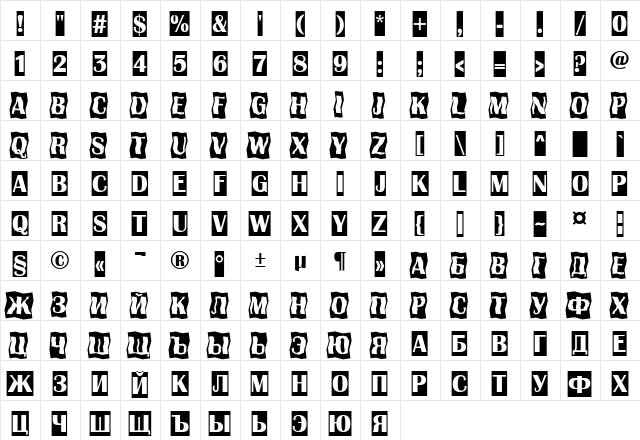
a_AlbionicTtlCmDc2Cmb Bold
Design Context for a_AlbionicTtlCmDc2Cmb Typeface
a_AlbionicTtlCmDc2Cmb is a composed and adaptable typeface that performs quietly and consistently across a wide range of design contexts. The heavy weight commands attention and anchors typographic hierarchies.